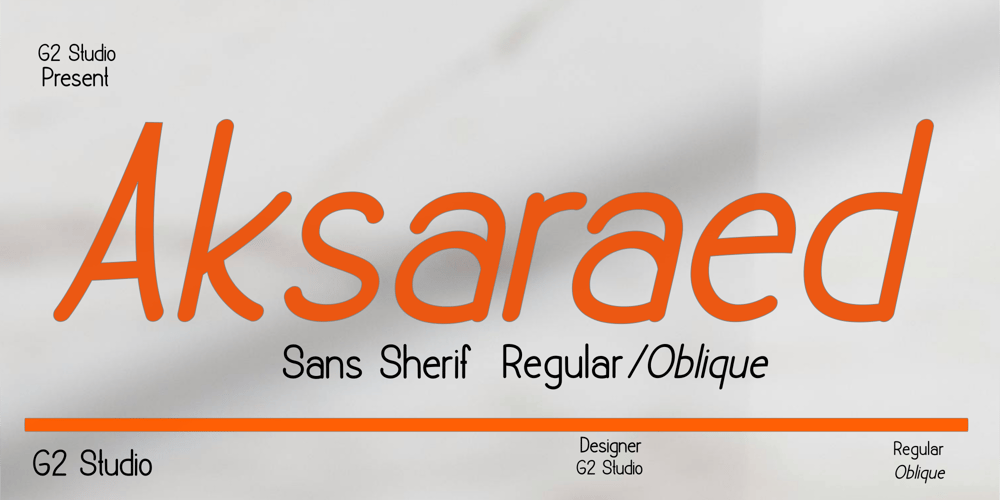
Aksaraed Font Family was designed by Eka Setiono and published by G2 Studio. Aksaraed contains 2 styles and family package options. Aksaraed Sans Serif is a modern, clean, and highly readable font. With balanced proportions and smooth lines, it exudes elegance and professionalism, making it perfect for both digital and print designs.